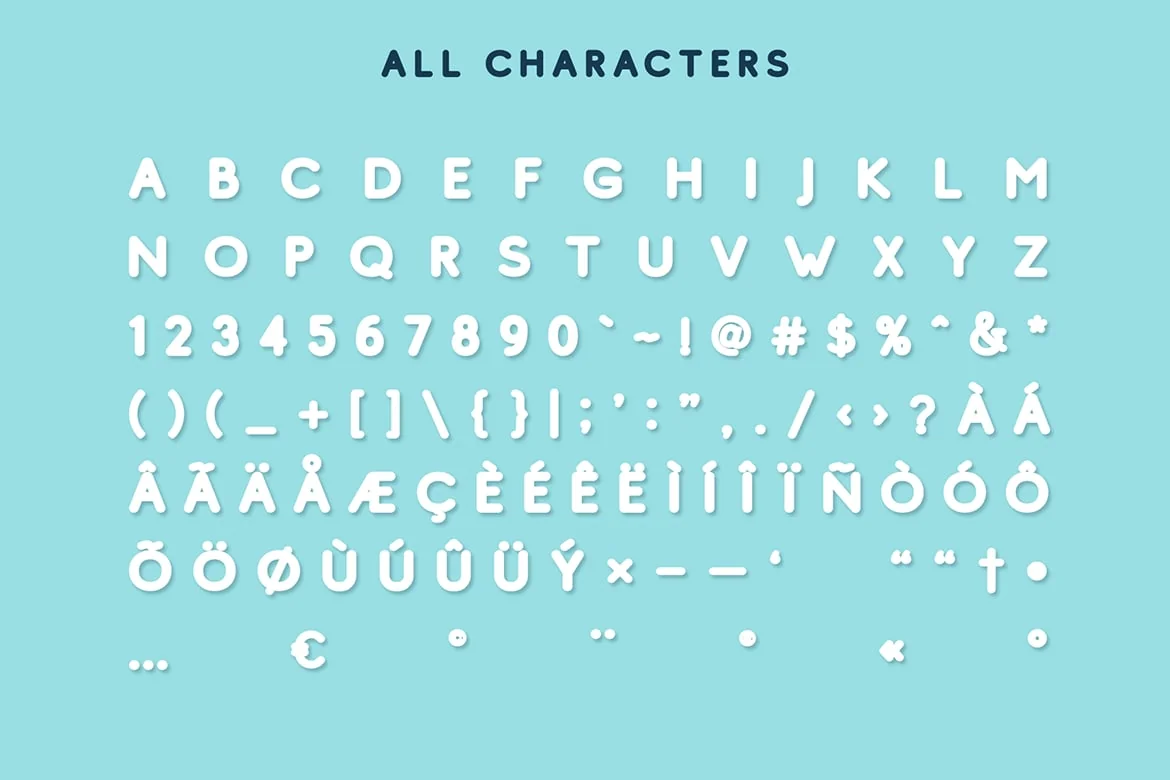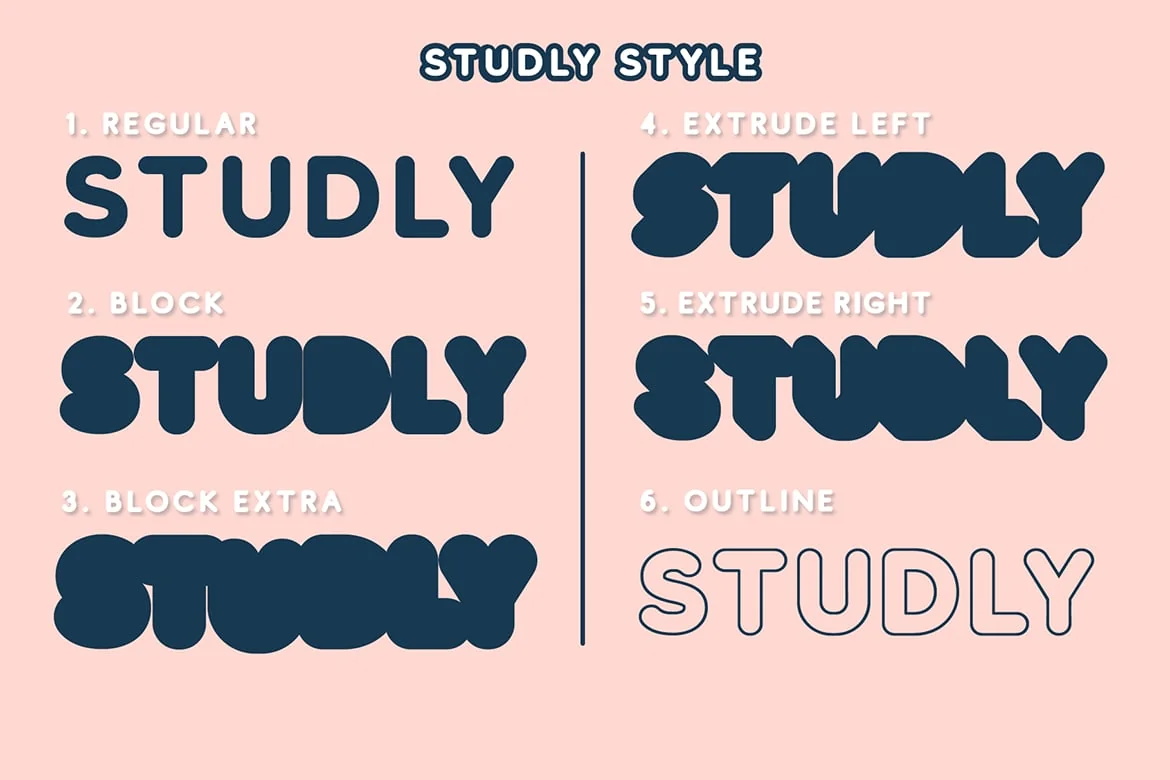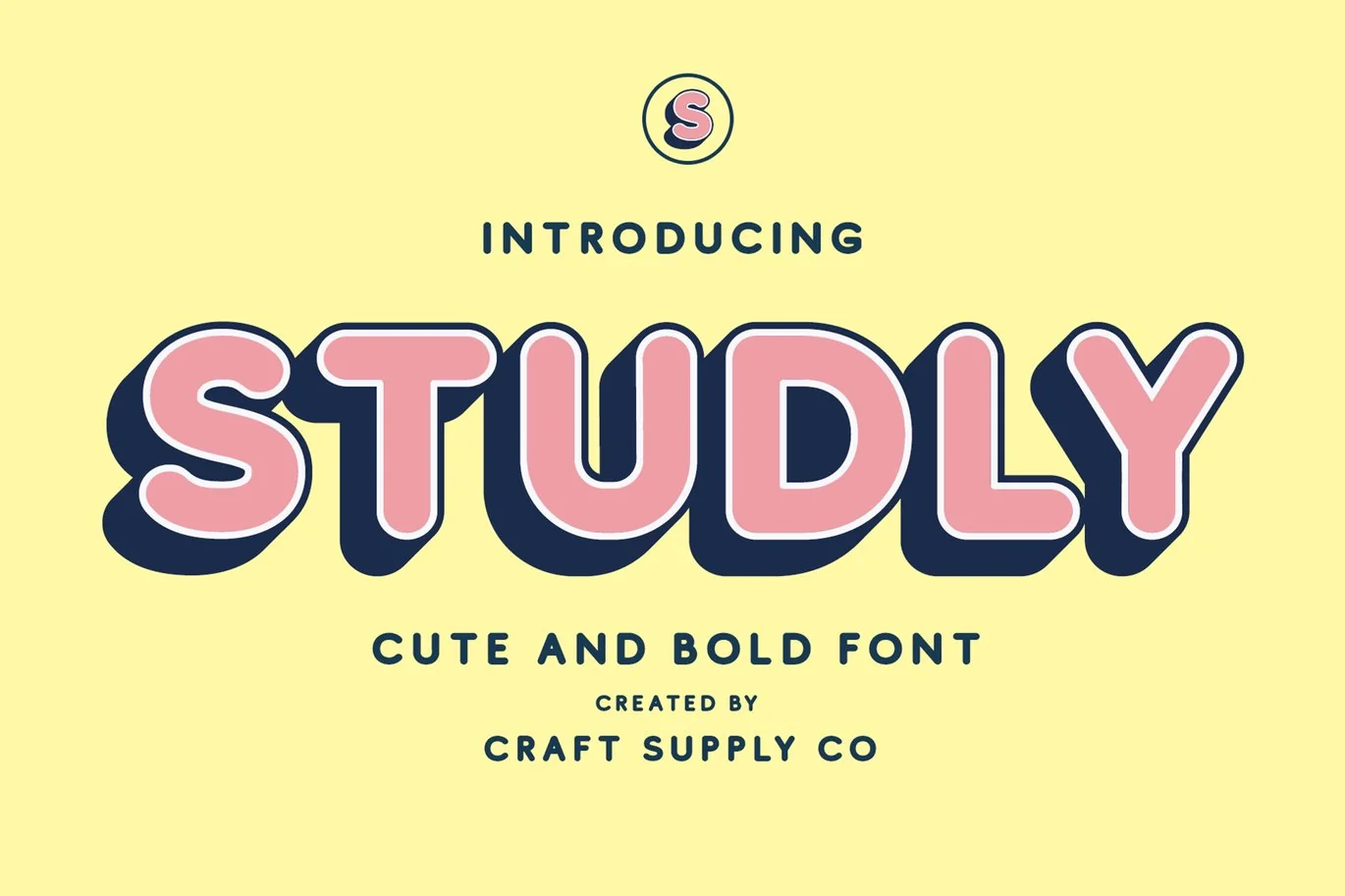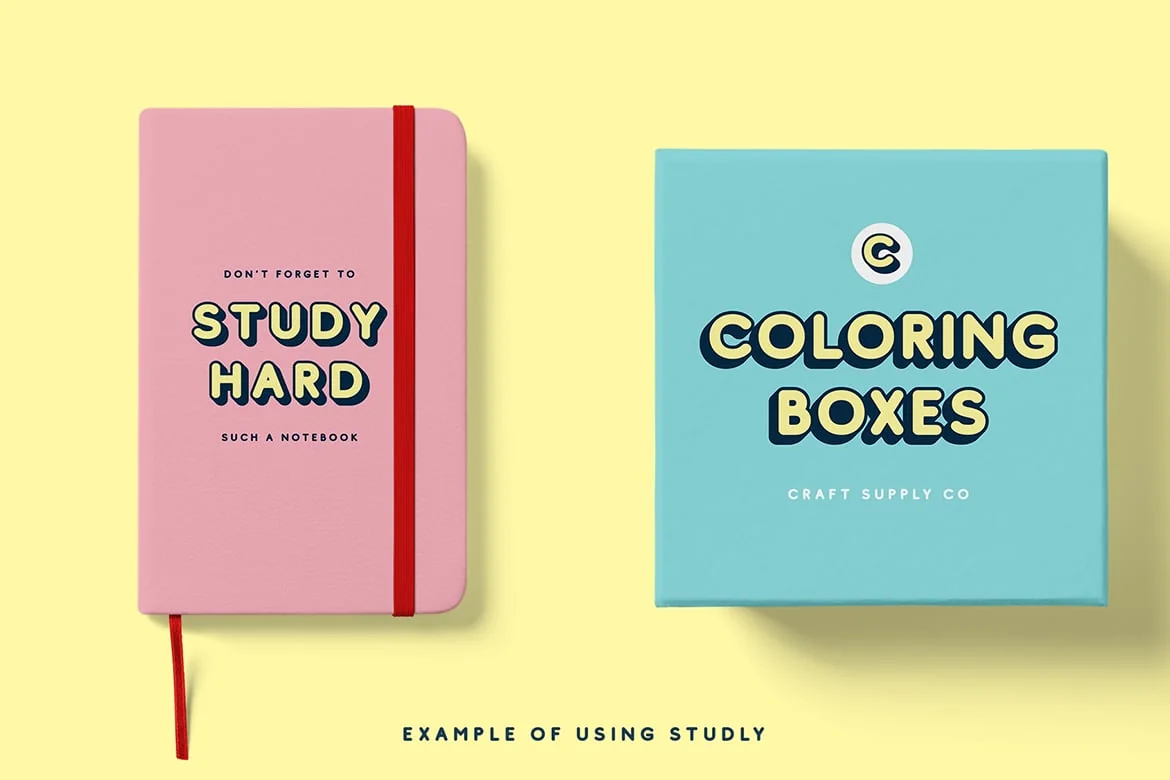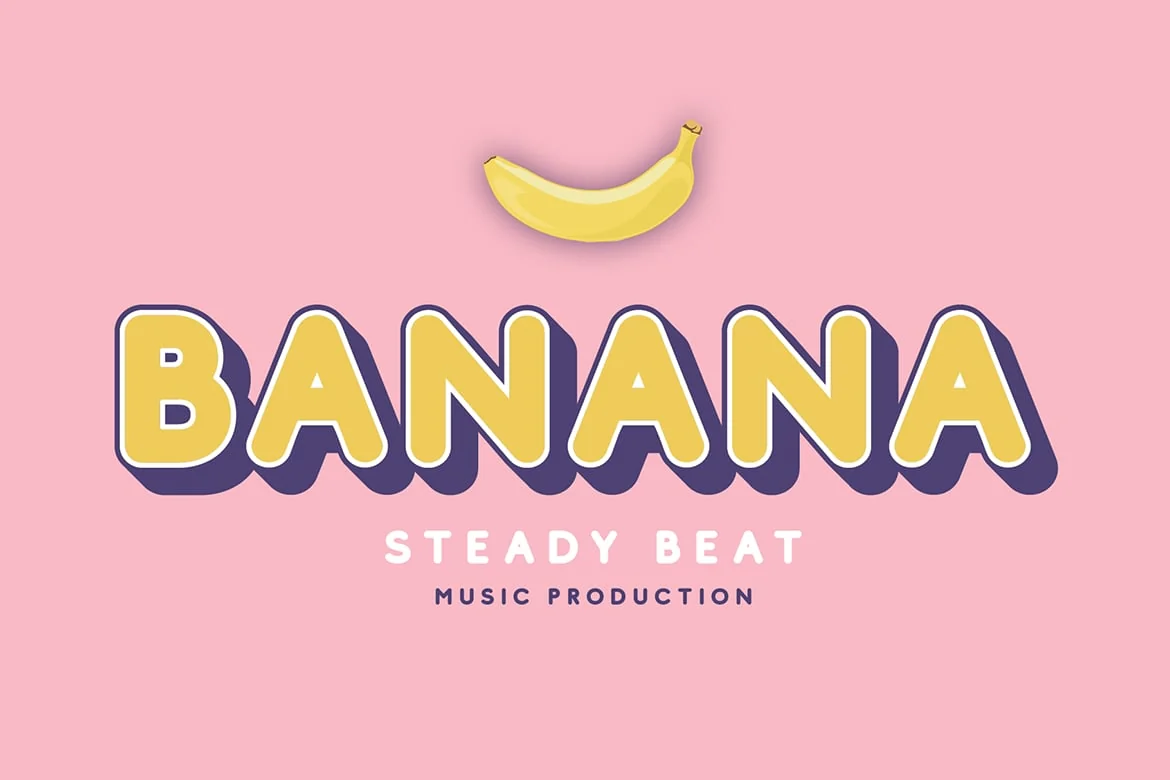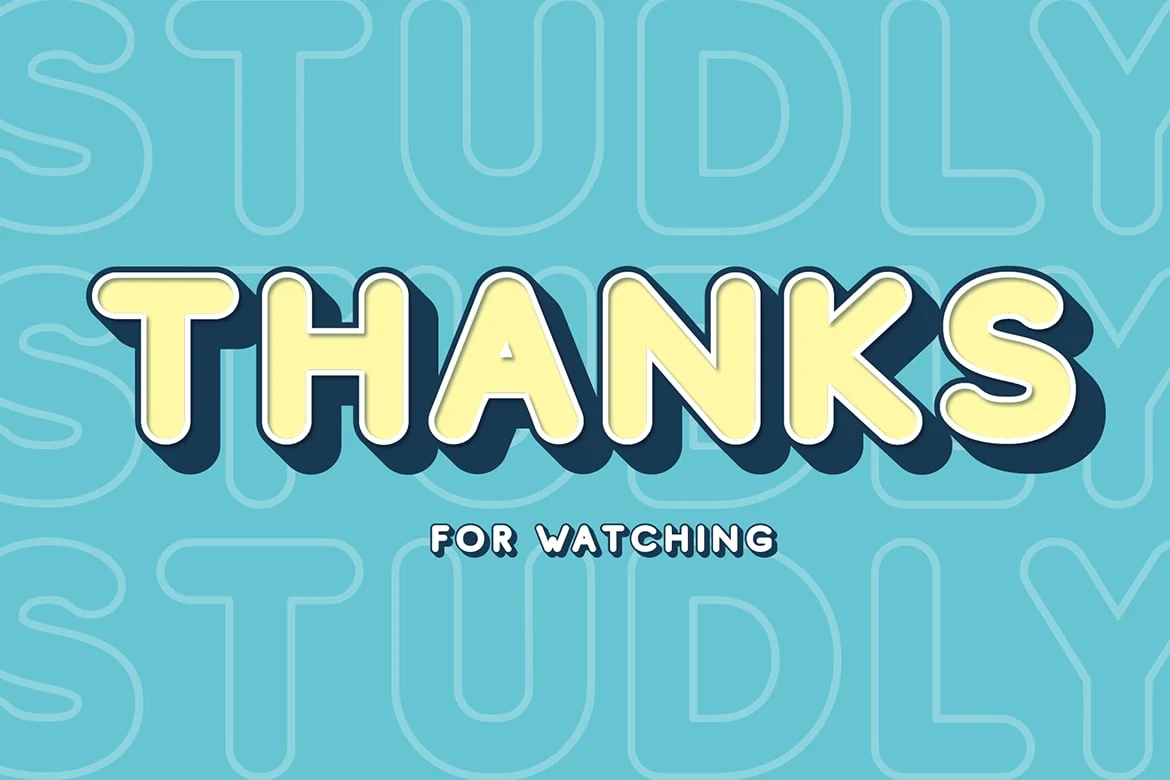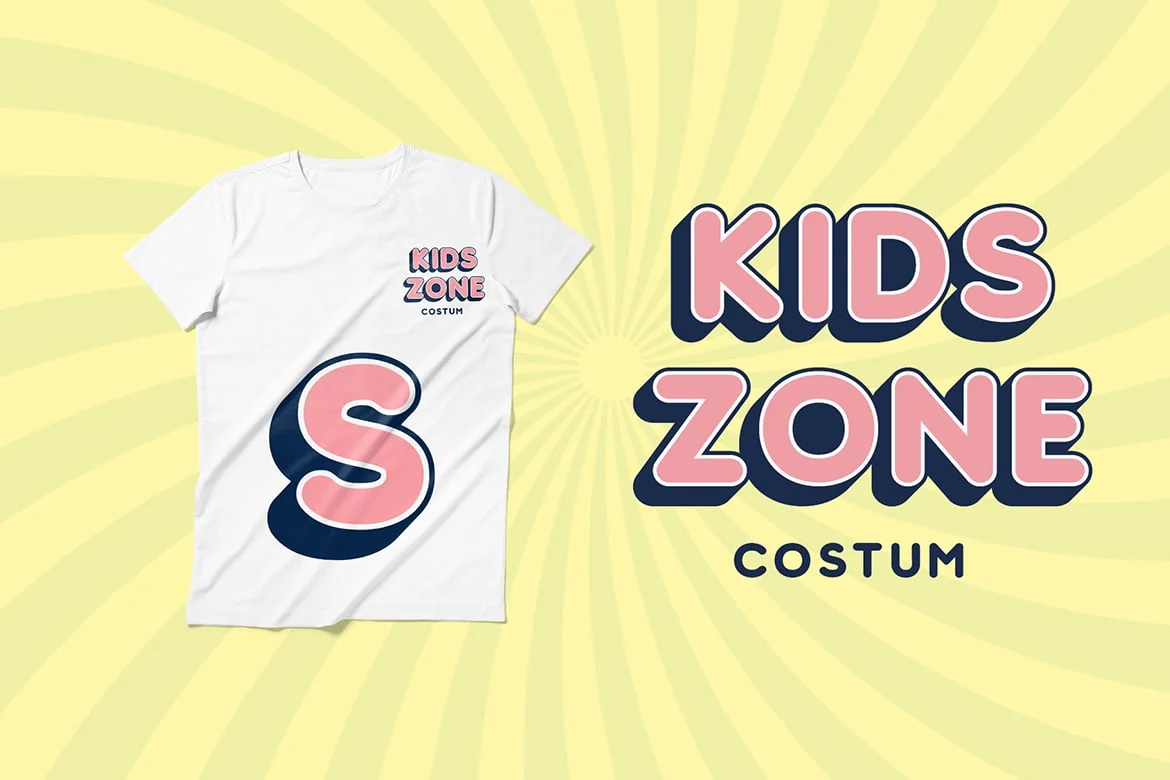
Studly – Layered Font Family
Introducing New Font : Studly – Layered Font Family
Studly – Layered Font Family is a bold sans serif with bold solid and outlined font files comes with 6 style.
Studly – Layered Font Family is suitable for Logo, greeting cards, quotes, posters, branding, stationary, design title, blog header, art quote, typography art, modern envelope lettering or any purpose to make our art/design project look pretty and trendy.
Studly – Layered Font Family also suitable for book design, happening style like handdrawn design or watercolor design theme, craft design, any DIY project, book title, wedding font, pop vintage design,